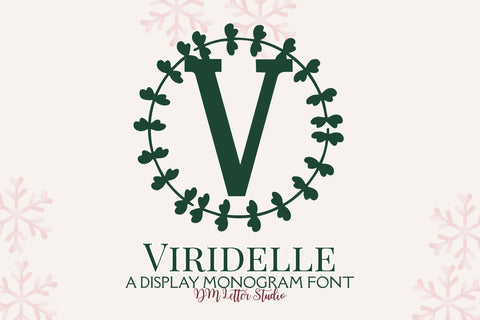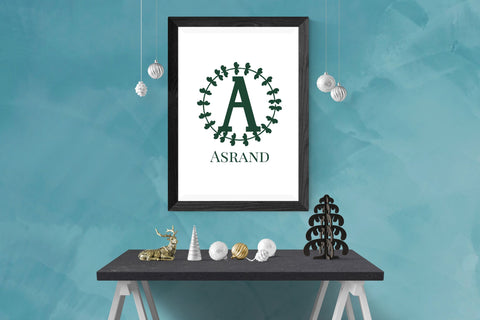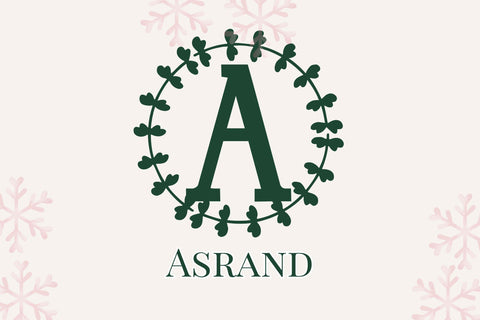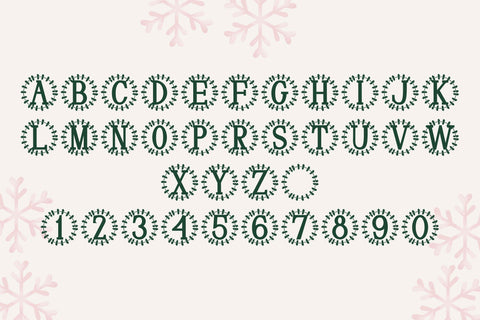
Viridelle Monogram
Meet Viridelle, the Monogram Font
Viridelle Monogram turns simple initials into fresh, botanical emblems with a clean and elegant character. It feels light, natural, and premium without being ornate. The strokes are smooth and balanced, so letters stay clear at any size. Because counters stay open, small tags remain crisp while larger signs look sharp and refined. Use it for wedding suites, boutique logos, keepsake gifts, stationery, and luxury packaging. As a result, your designs look polished and gift-ready with minimal effort.
Fast layouts with the Viridelle Monogram Font
Start with a bold initial and let white space do the work. After that, add names or dates using a separate supporting font. Because Viridelle holds shape at small sizes, labels, stickers, cards, and tags stay clean. In addition, it works well with oval frames, wreath outlines, thin dividers, and simple leaf accents, so full sets come together quickly. Finally, save palette pairs like sage & ivory, emerald & cream, champagne & charcoal, or navy & pearl to reuse across your product line.
Creative uses and quick wins
- Boutique logo marks and brand seals
- Wedding initials for invitations, menus, and signage
- Gift tags, stickers, and keepsake box marks
- Premium labels for candles, soap, perfume, and packaging
Design tips for Viridelle Monogram Font
Keep the monogram as the hero and use a separate font for extra text. Also, give the letter enough breathing room so details stay readable at small sizes. For a premium finish, try foil stamping, embossing, or letterpress on thick stock. Finally, export at 300 DPI for print and at 2× size for web so edges stay smooth everywhere.